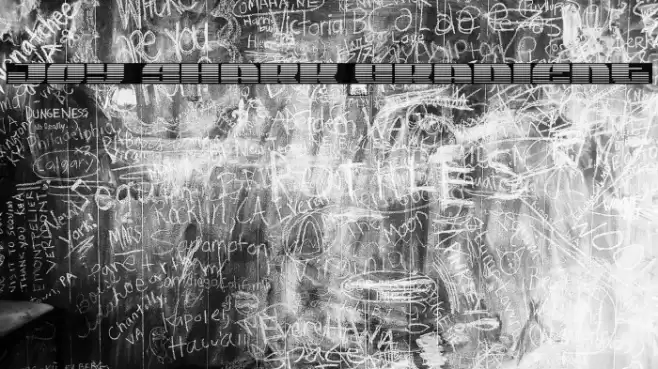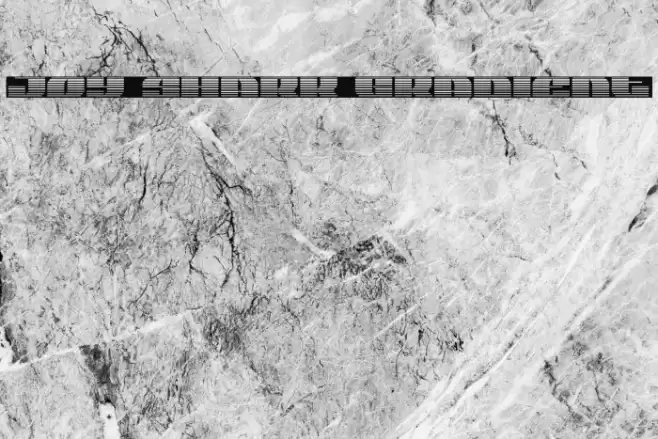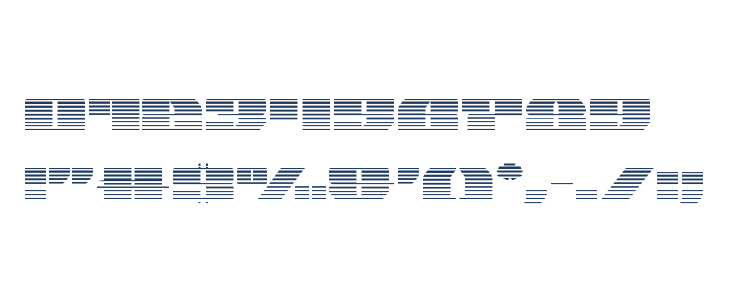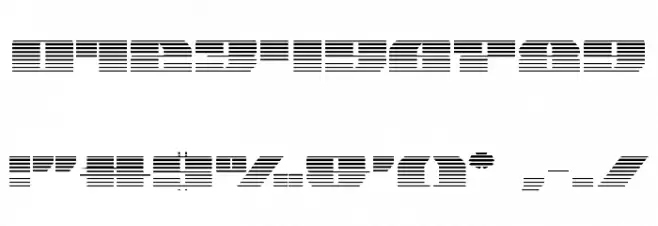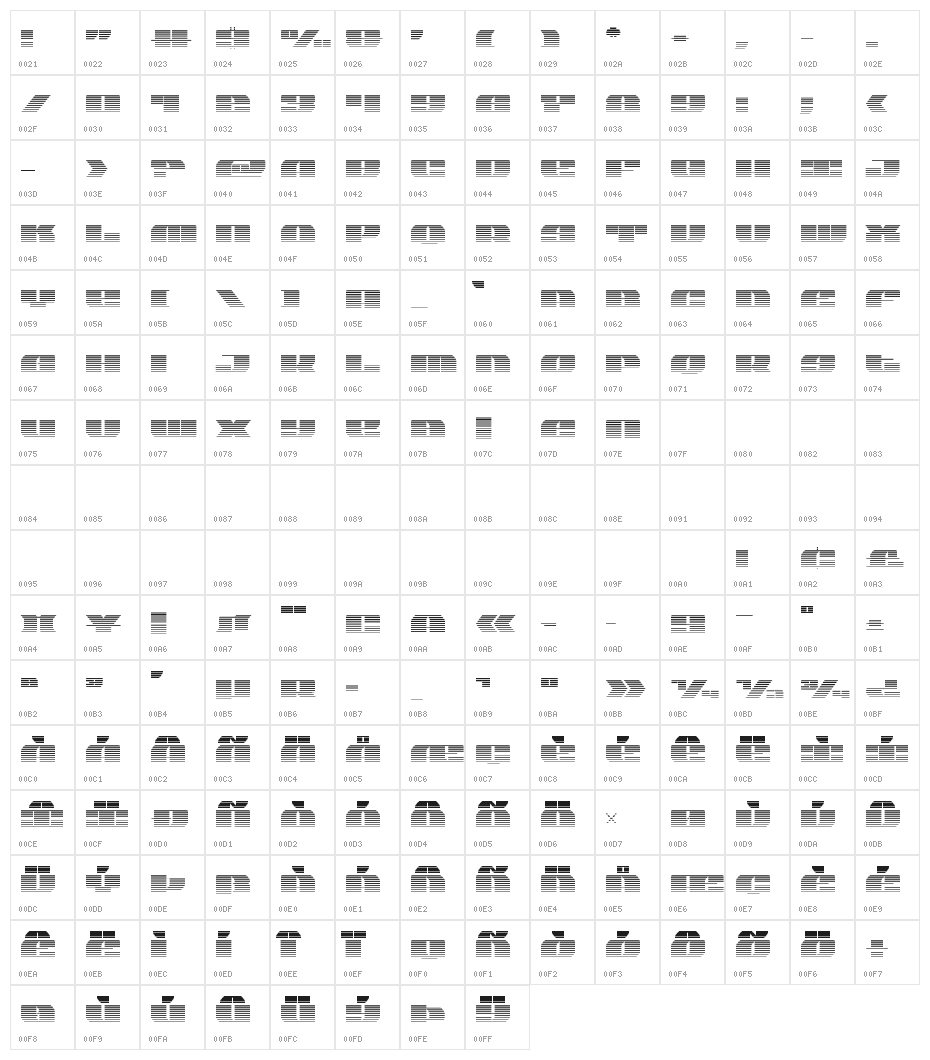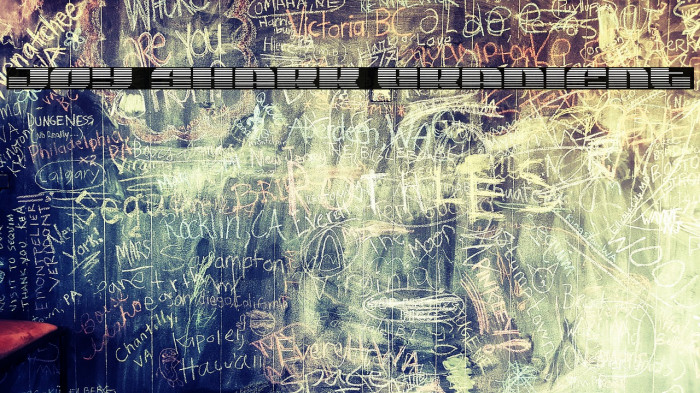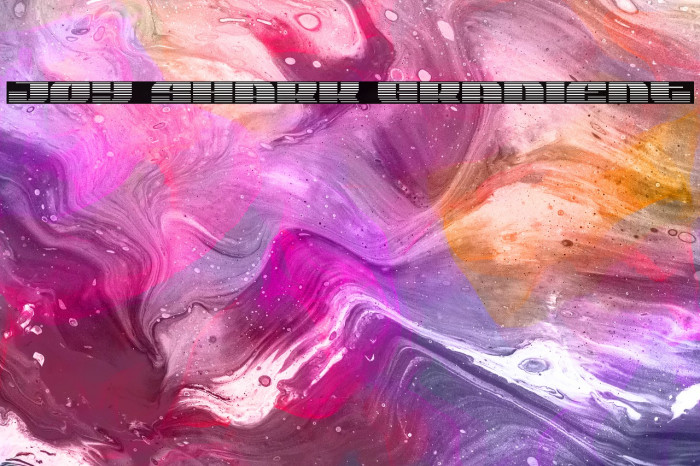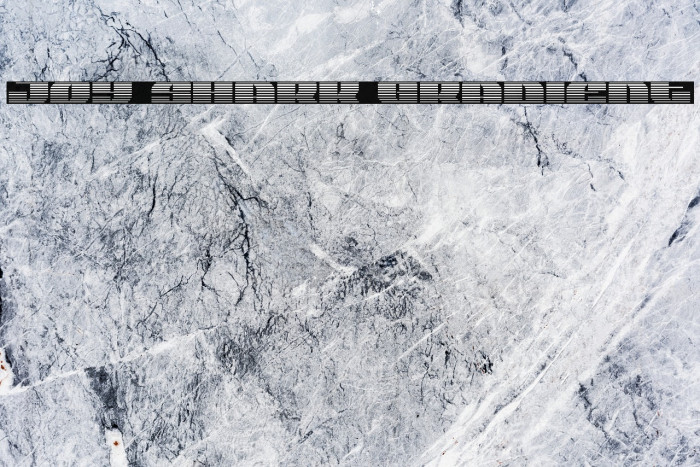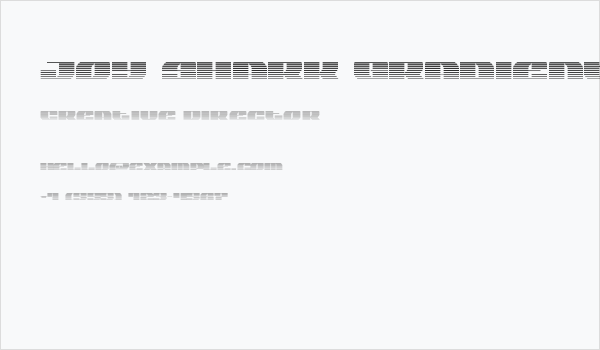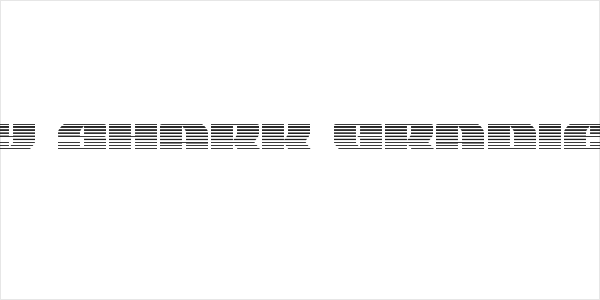
Joy Shark Gradient Font
Joy Shark Gradient Description
This font features a unique, striped design that creates a dynamic and modern appearance. Each character is composed of horizontal lines, giving it a sense of movement and energy. The uppercase and lowercase letters maintain a consistent style, with a bold and geometric structure. The numbers and special characters are equally distinctive, ensuring a cohesive look across all text elements. The font's design is both eye-catching and contemporary, making it suitable for projects that require a strong visual impact.
A modern, striped font with a bold, geometric style from Uncategorized fonts.